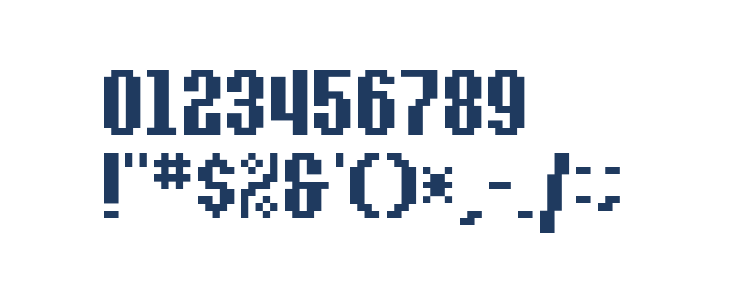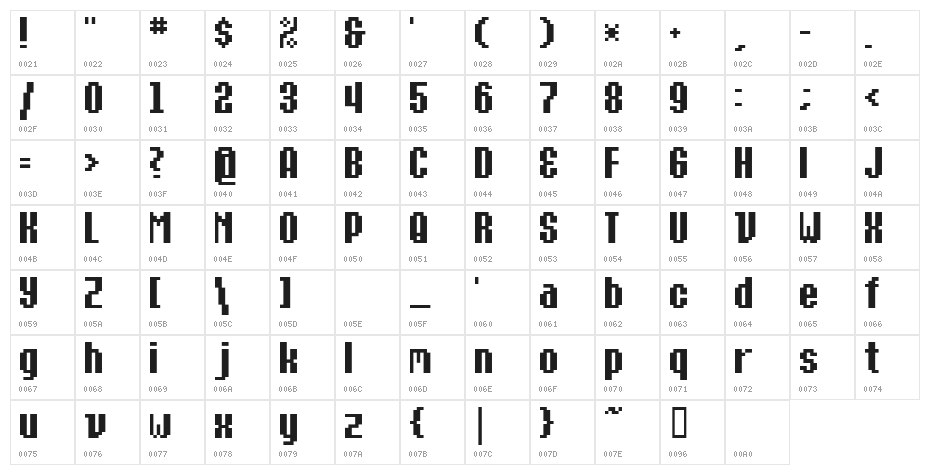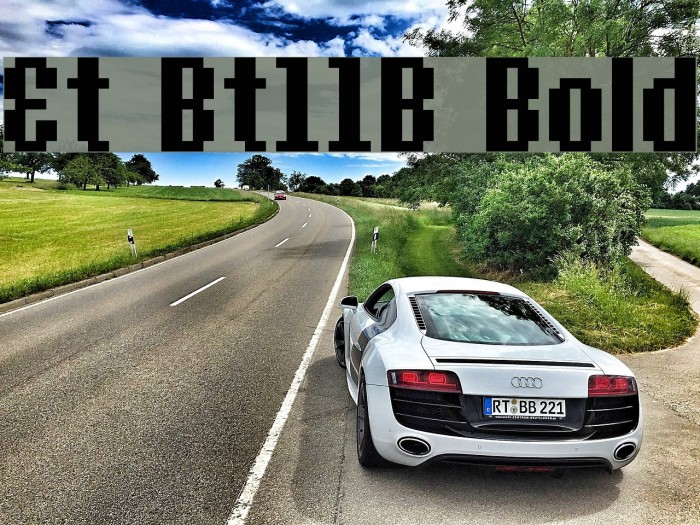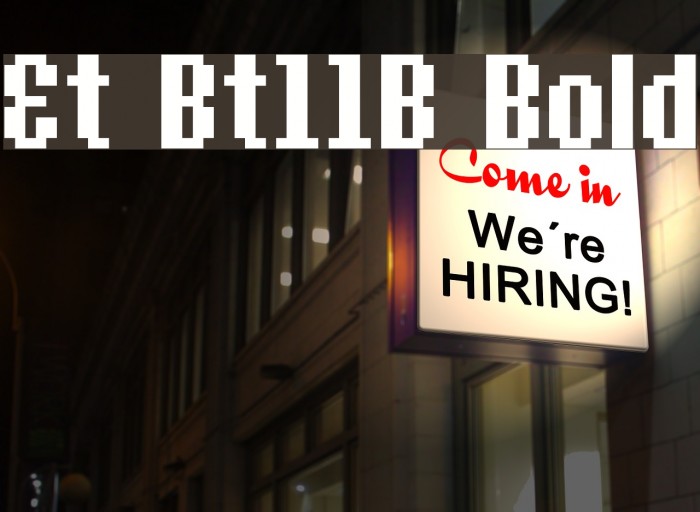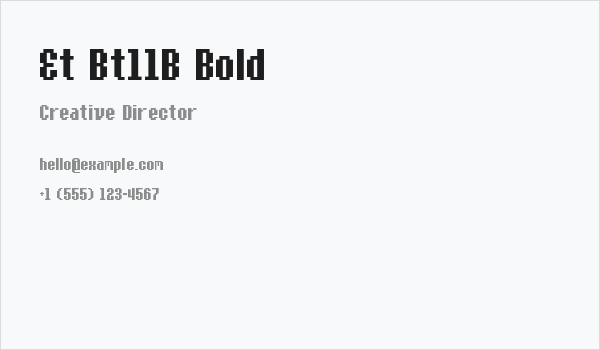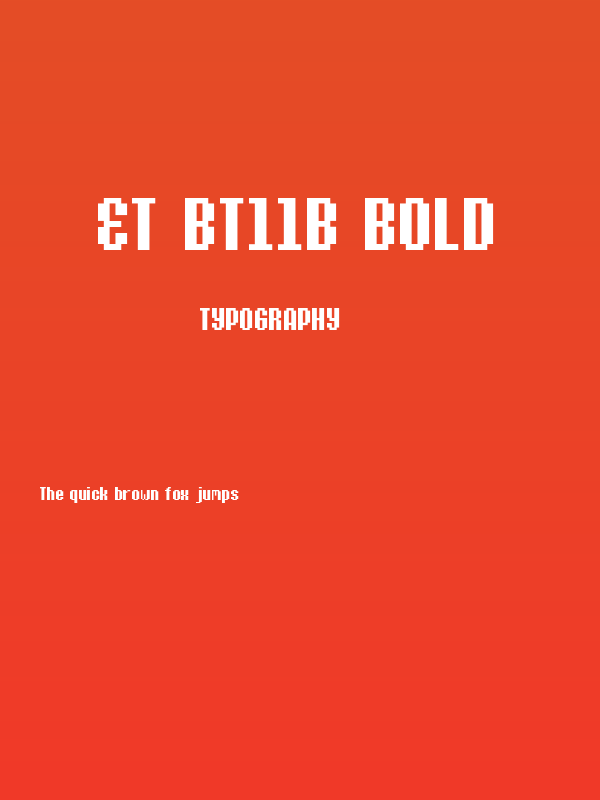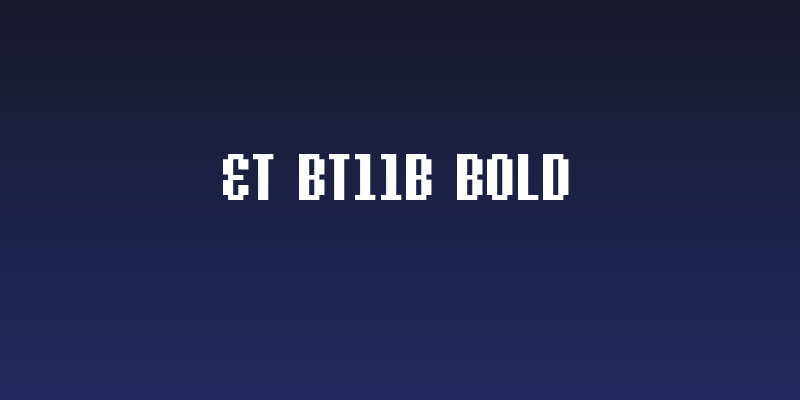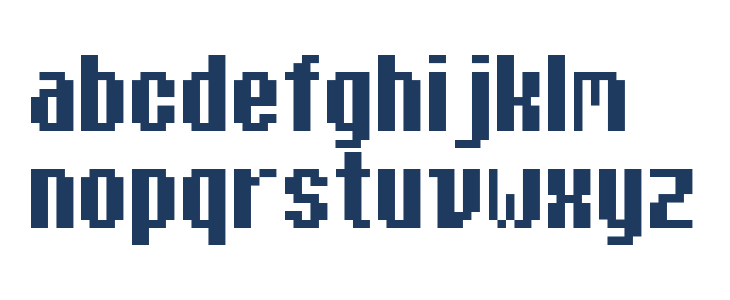
Et Bt11B Bold Font
Et Bt11B Bold Description
This font features a bold, pixelated design reminiscent of early digital or arcade-style typefaces. Each character is constructed with a blocky, geometric form, giving it a distinctly retro and digital aesthetic. The uppercase and lowercase letters maintain a consistent height, while the numerals and special characters follow the same pixelated pattern. This design choice creates a uniform and cohesive look across all characters. The font's bold weight and high contrast between the strokes and spaces make it highly legible, even at smaller sizes. Its unique style is both nostalgic and modern, appealing to projects that aim to evoke a sense of vintage digital technology.
| Overall Style | Retro, Digital |
| Proposed Projects | Ideal for video game graphics, retro-themed posters, digital art projects, and any design requiring a nostalgic digital feel. |